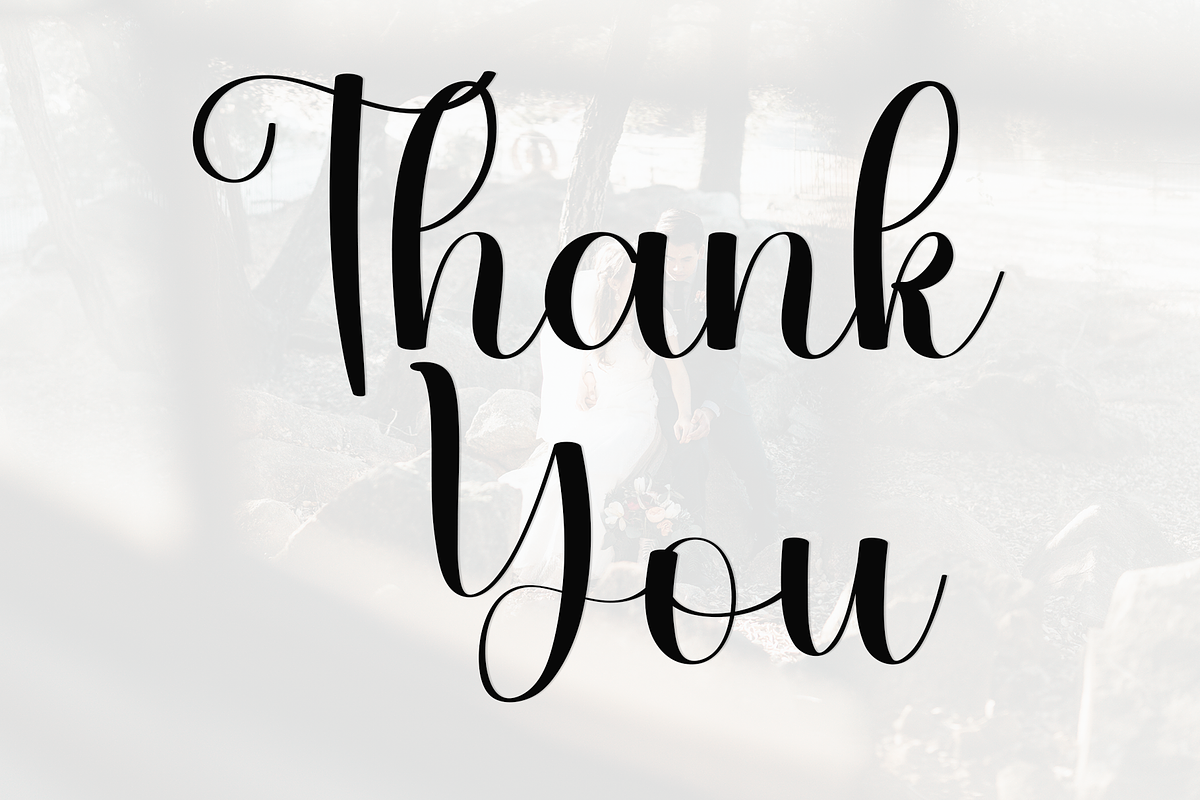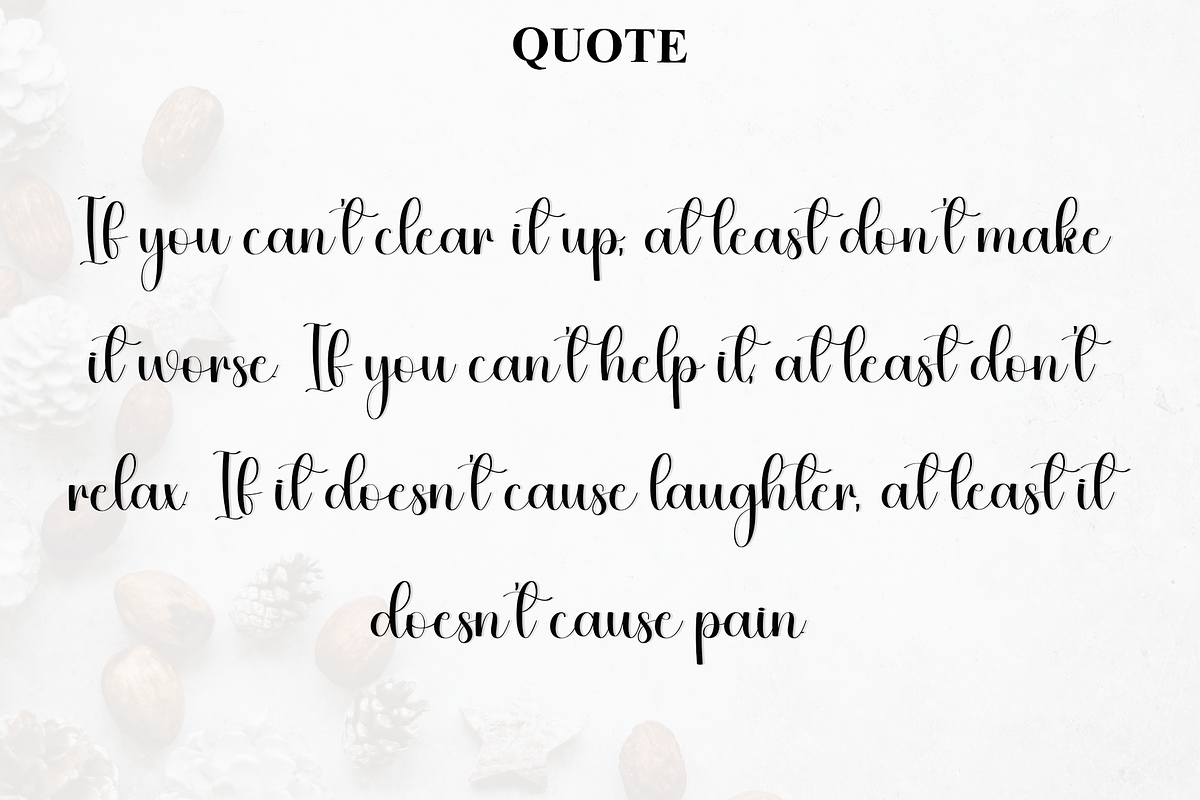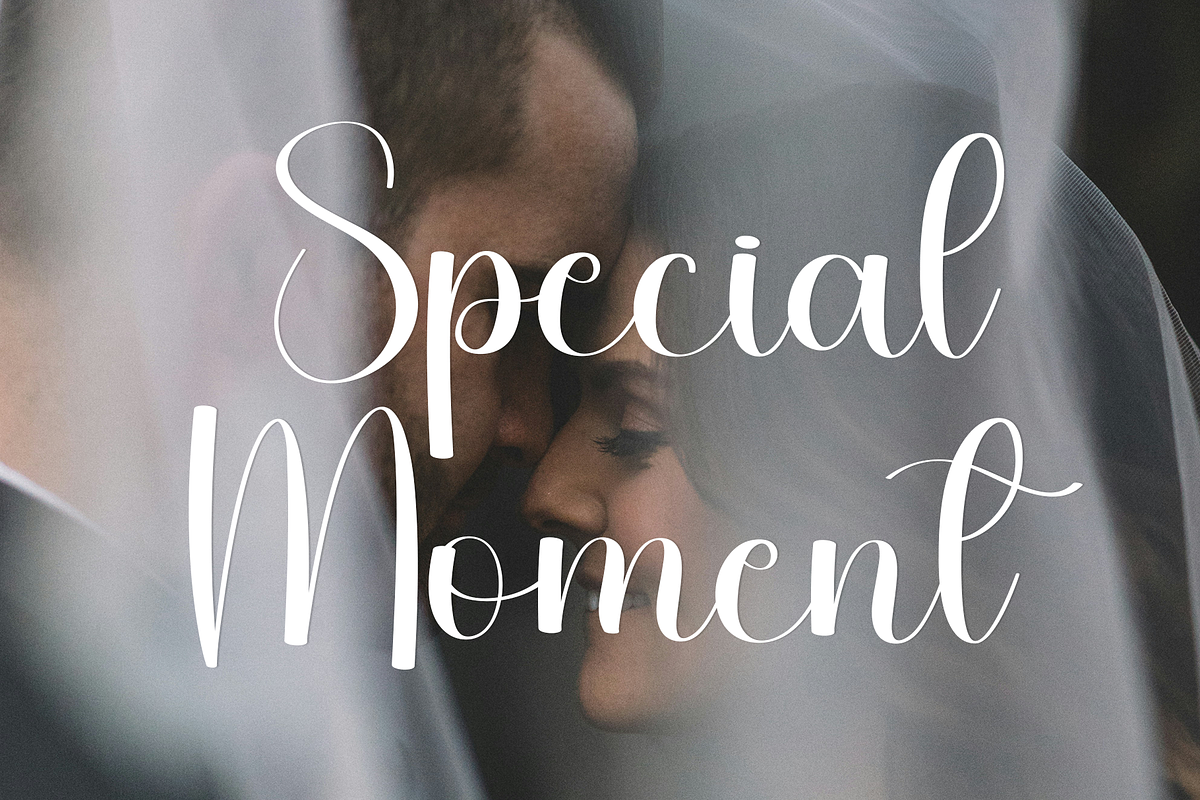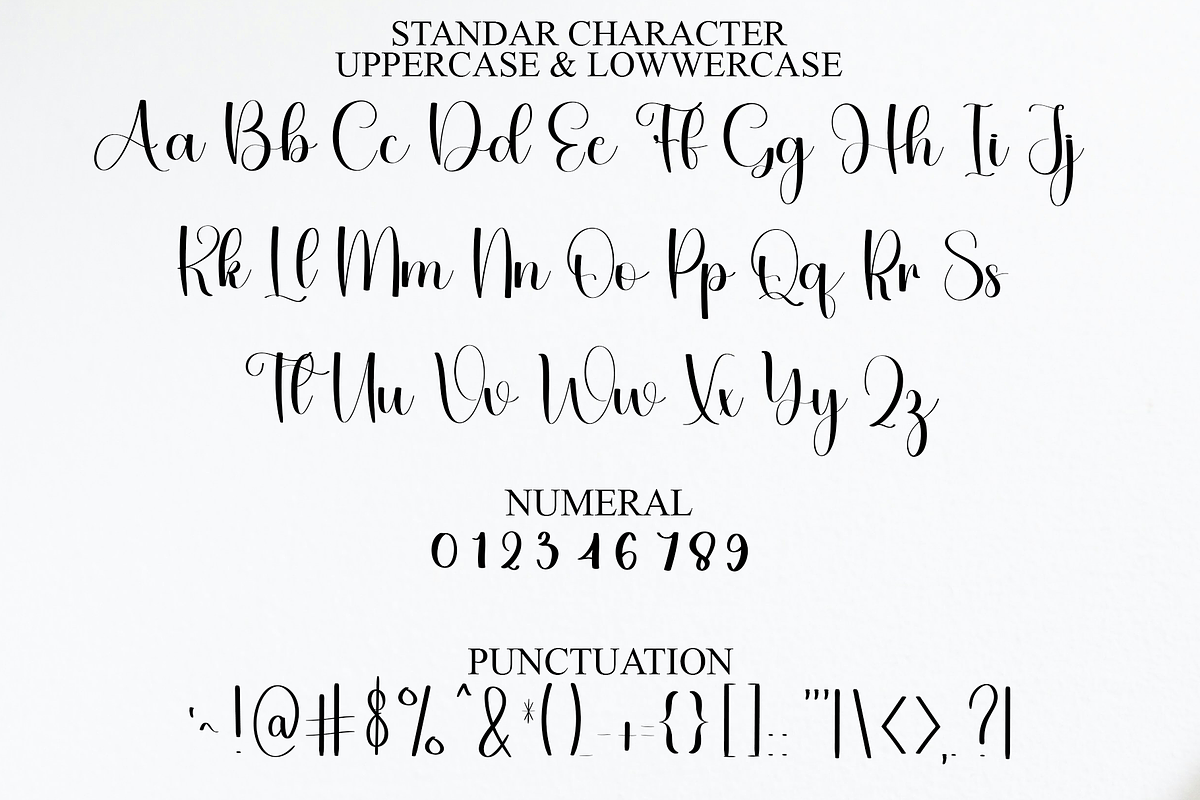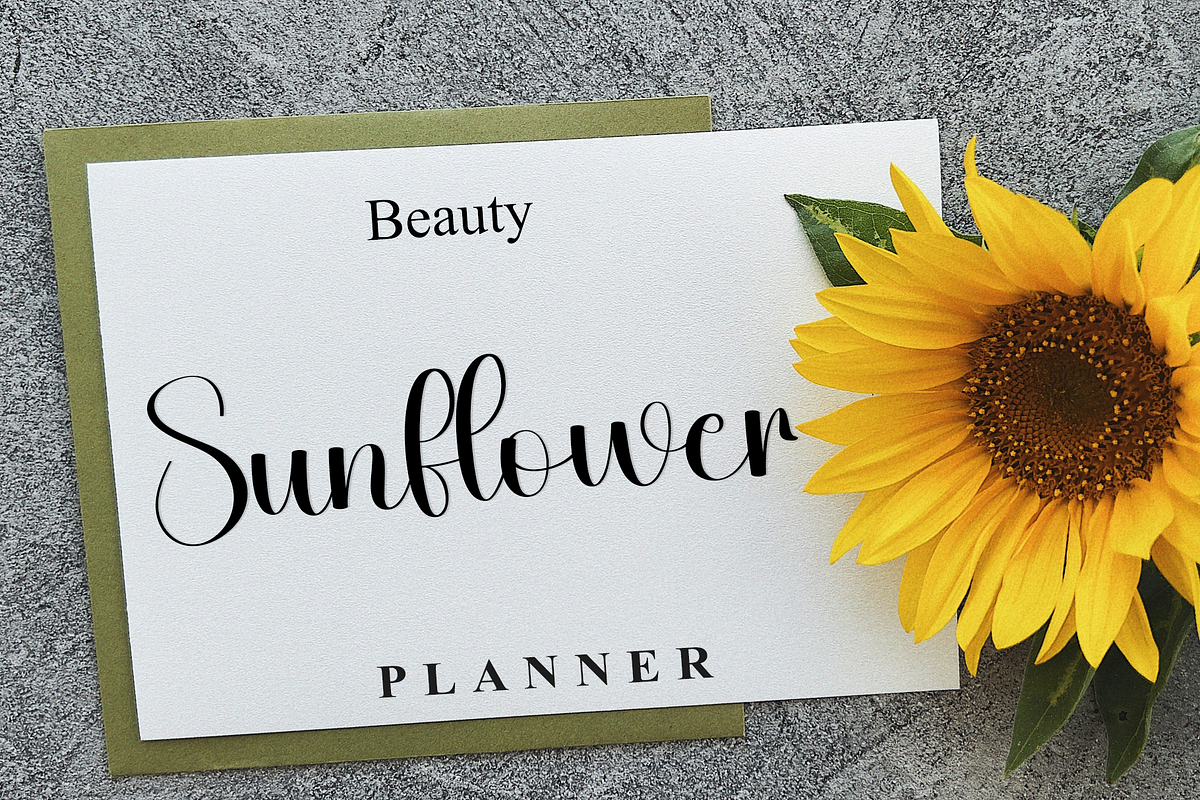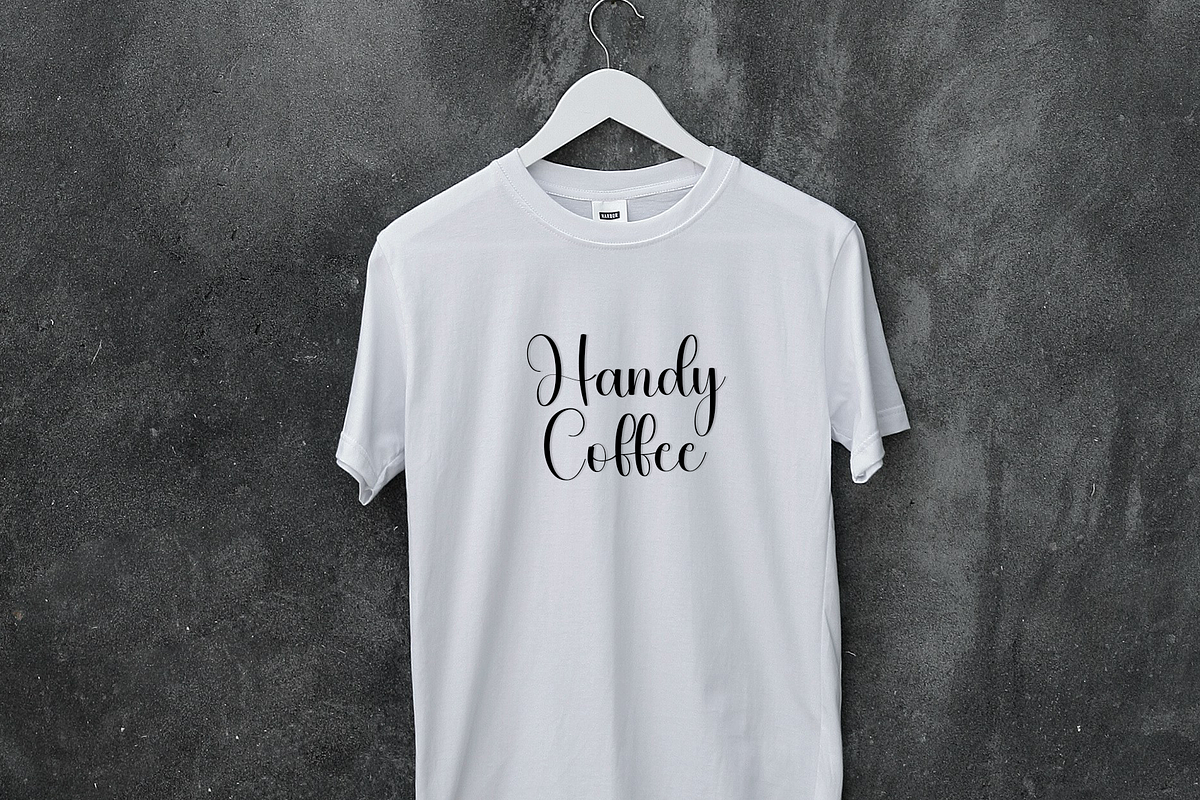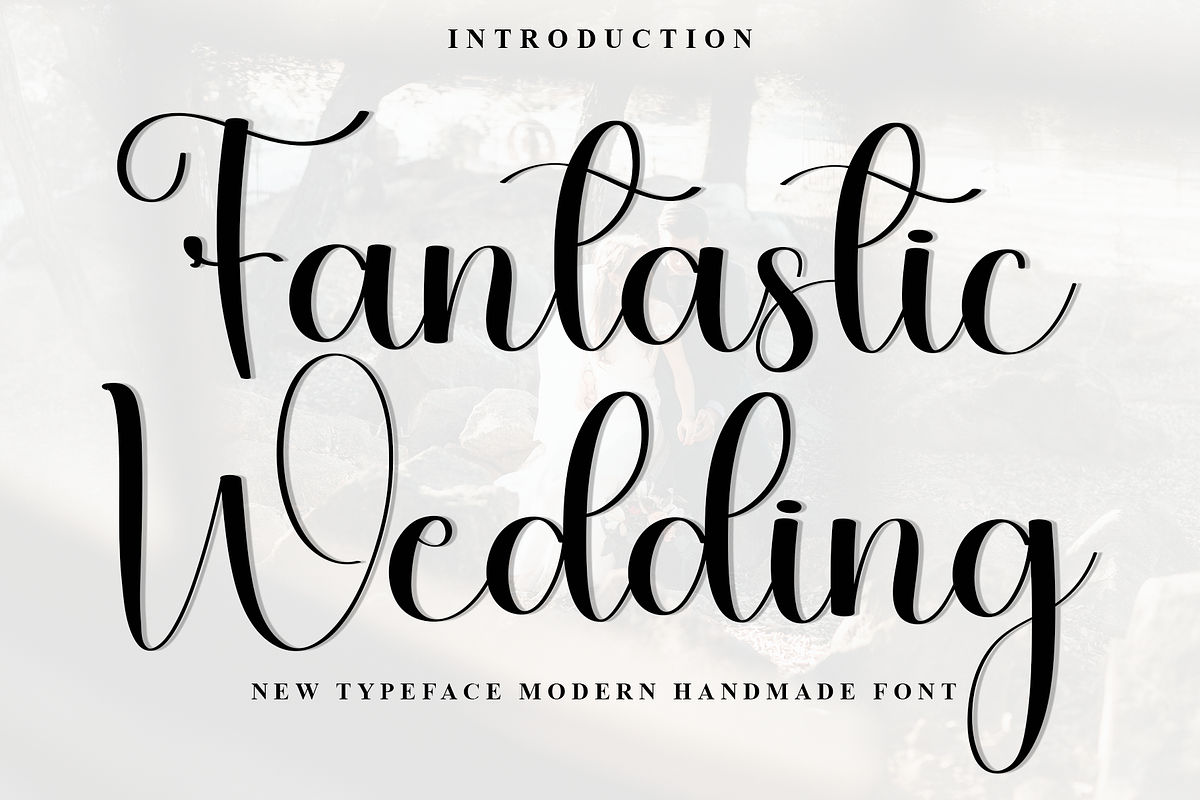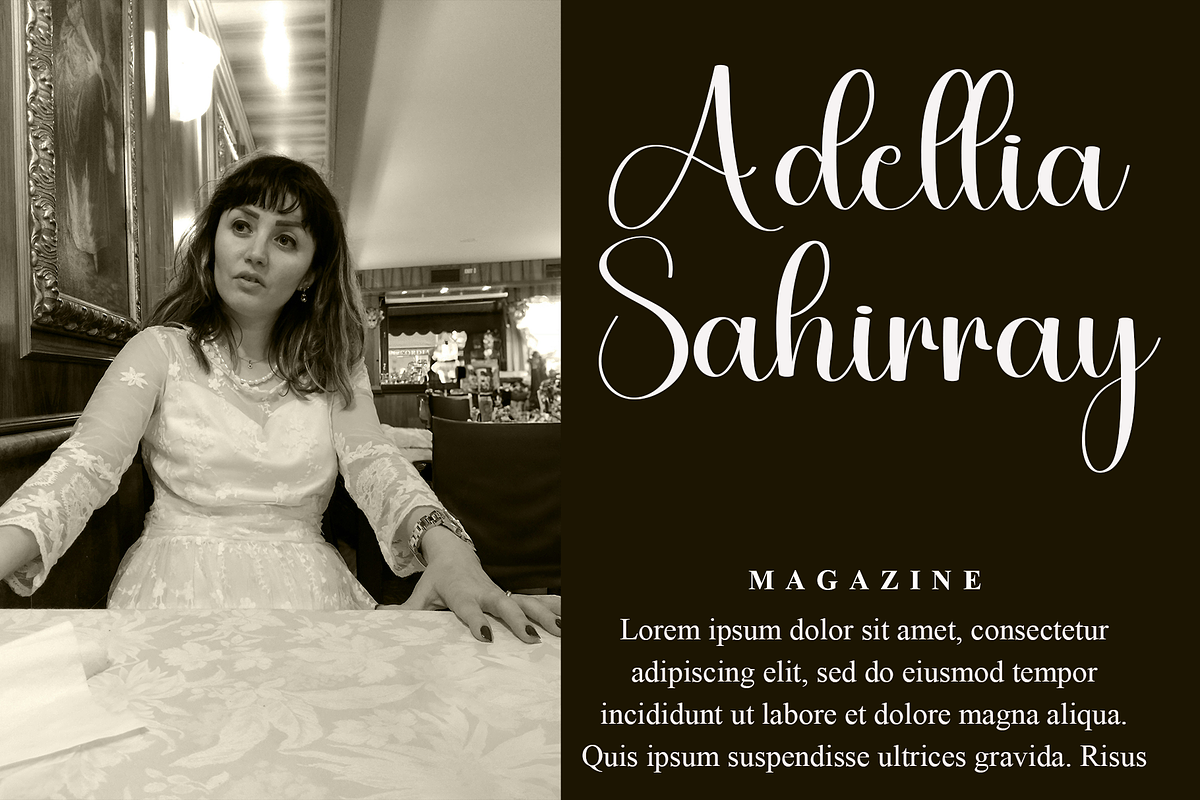
Fantastic Wedding
Fantastic Wedding is a beautiful and eye-catching font designed with a soft, unique touch. Its distinctive strokes give it a special character, making it meaningful and versatile for future use. With various characters, it’s perfect for design projects, crafts, and other creative works.